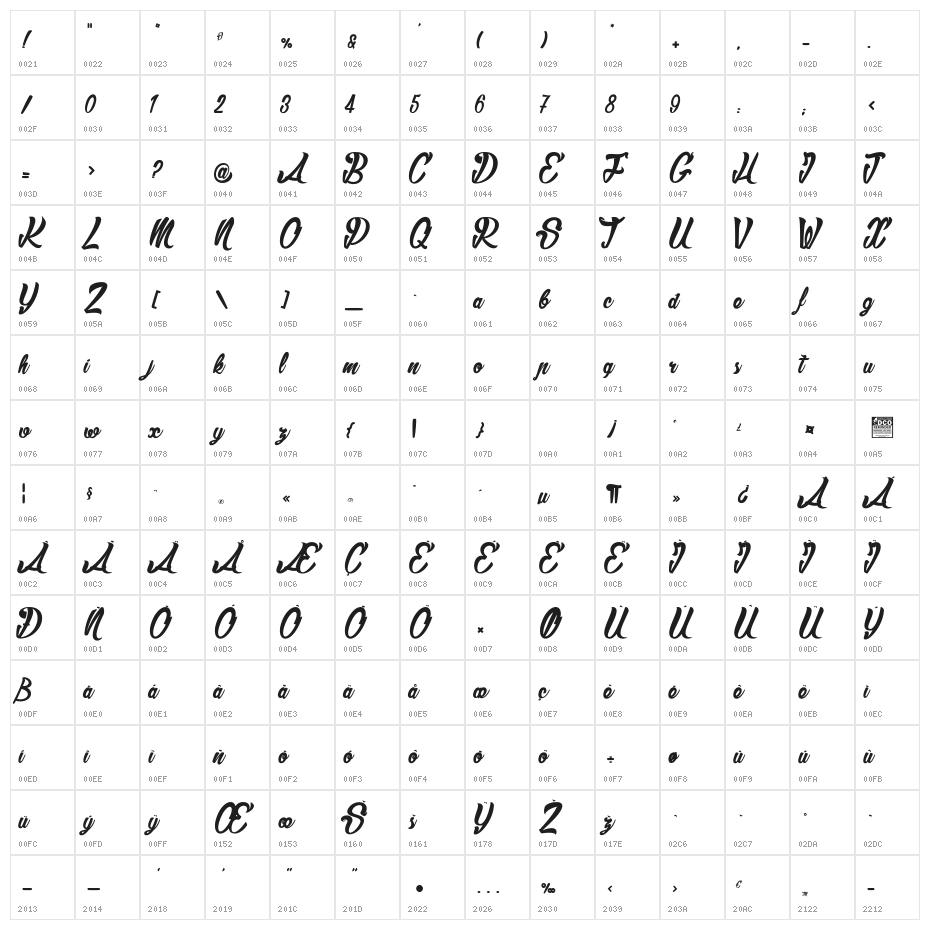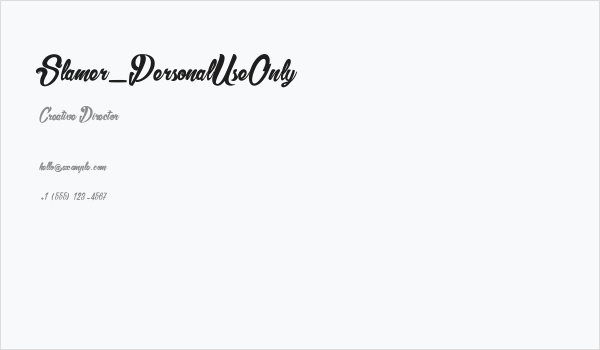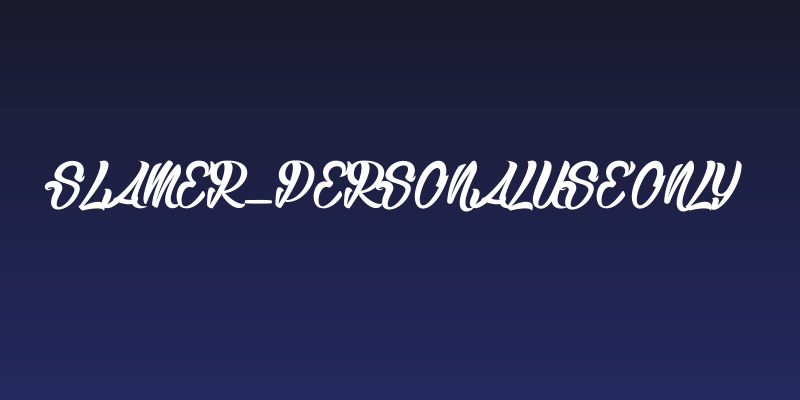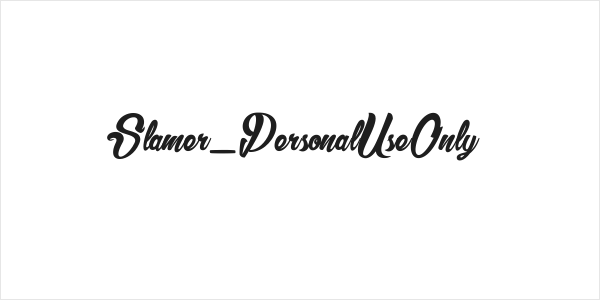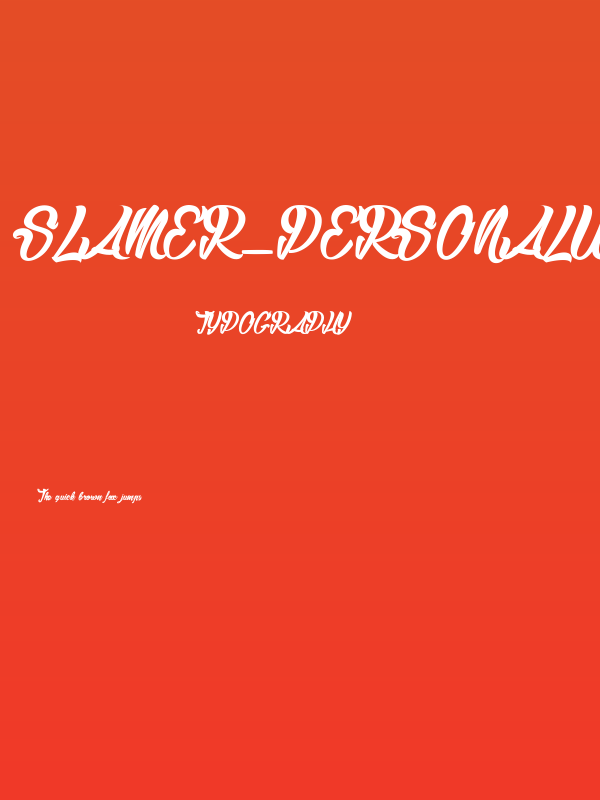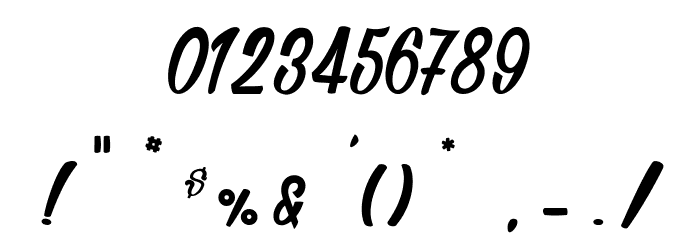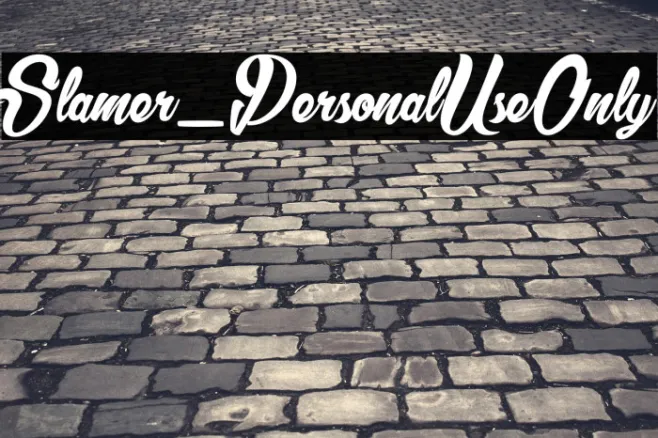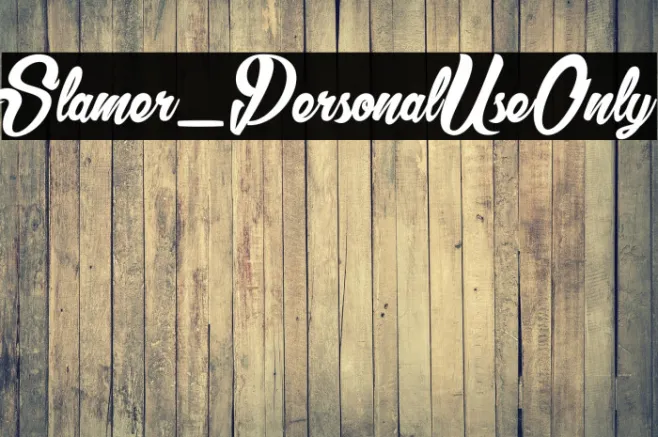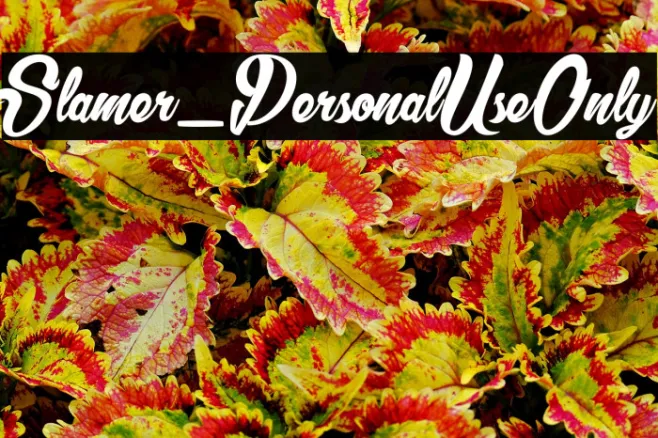
Slamer_PersonalUseOnly Font
Slamer_PersonalUseOnly Description
This font features a bold, cursive style with a strong emphasis on fluidity and elegance. The letters are interconnected, creating a seamless flow that is both dynamic and visually appealing. The uppercase letters are particularly striking, with exaggerated curves and flourishes that add a touch of sophistication. The lowercase letters maintain the same fluidity, ensuring consistency across the text. The numbers and special characters are designed to match the overall style, making them suitable for a variety of uses. The font's boldness and unique character make it ideal for projects that require a touch of elegance and flair.
| Proposed Projects | Ideal for wedding invitations, branding, logos, and decorative headlines. |